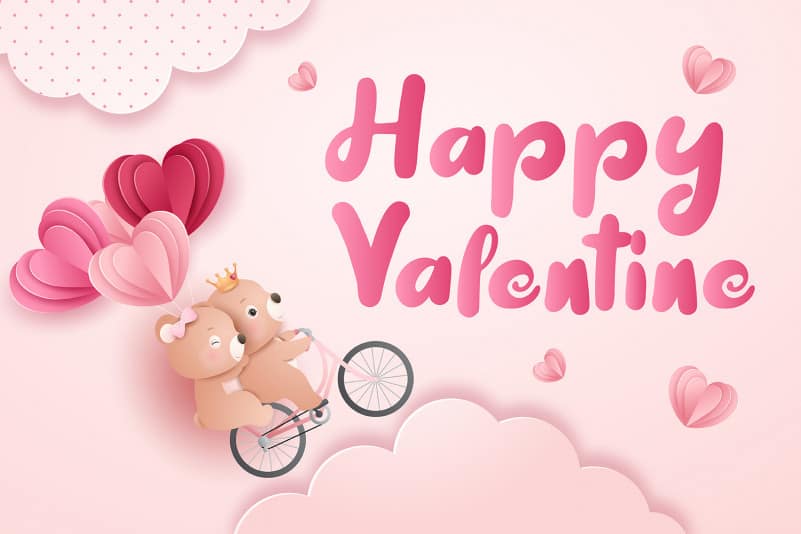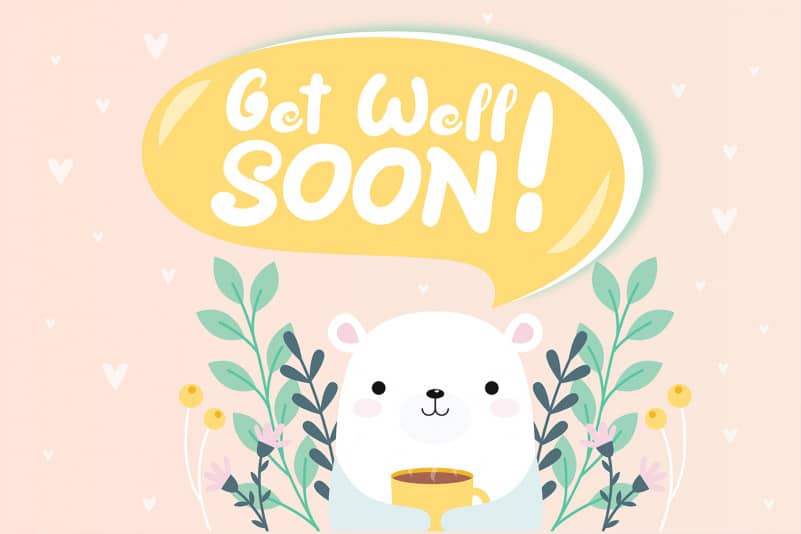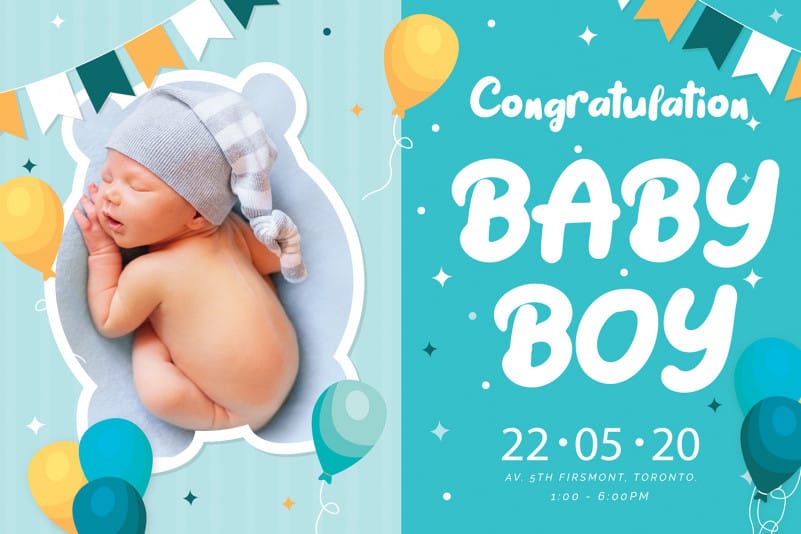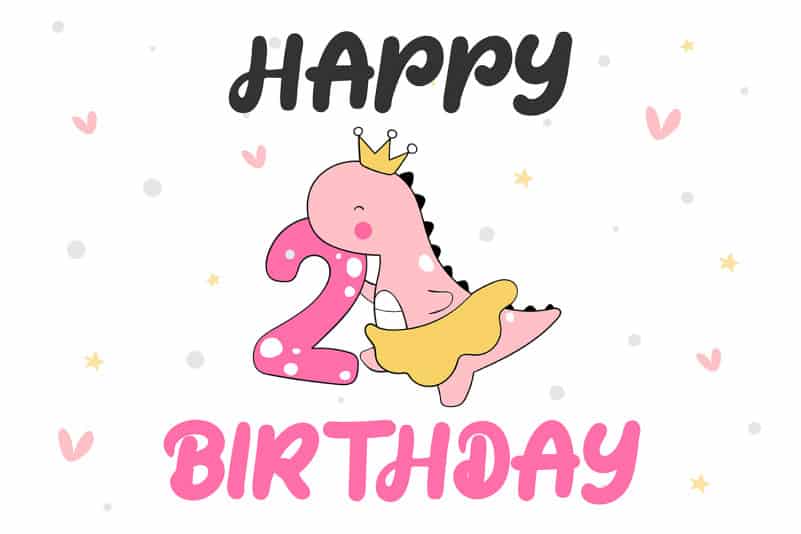
Winter Cat – Display Font
Winter Cat – Display Font is a funny display font, delicate and cute handwritten font. Its distinct and well-rounded letters make this font a masterpiece. Fall in love with its incredibly versatile style and use it to create spectacular designs!